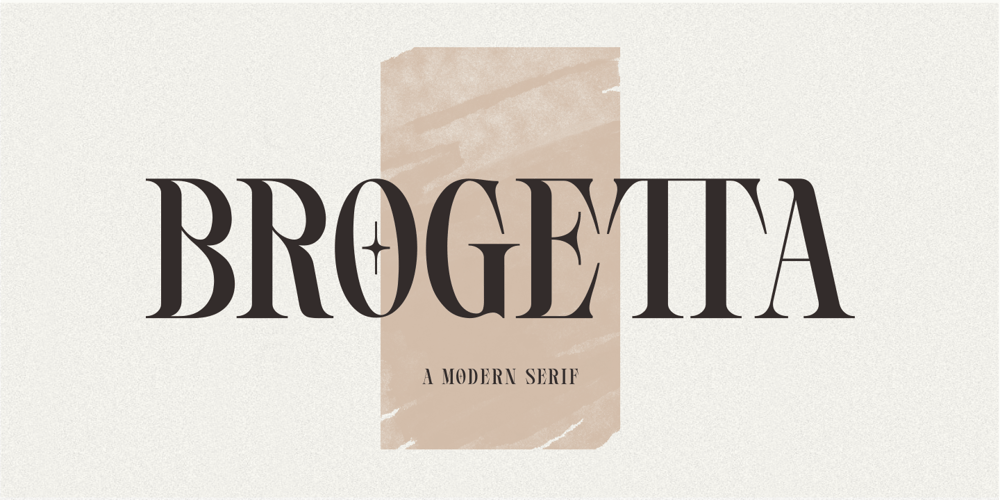
Brogetta Font Family was designed by Hanief Farandi and published by Hanzel Space. Brogetta contains 1 styles and family package options. BROGETTA will perfect for many project: fashion, magazines, logo, branding, photography, invitations, wedding invitation, quotes, blog header, poster, advertisements, postcard, book, websites, etc.What’s Included? Uppercase & lowercase letters, numbers, punctuation Multilingual support